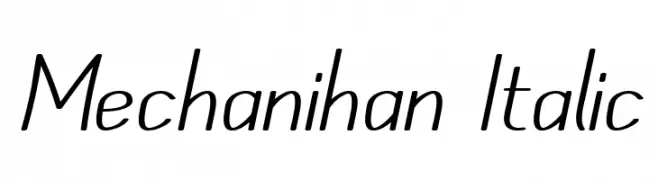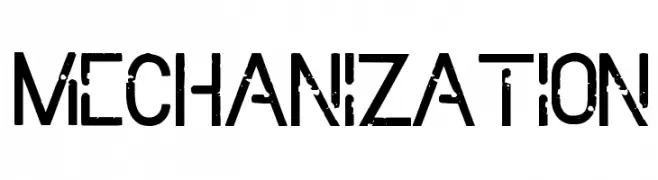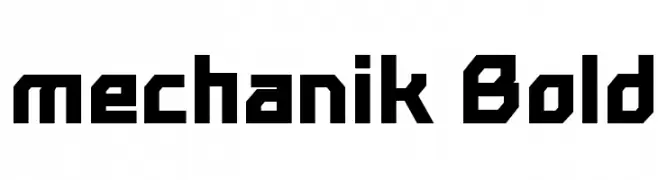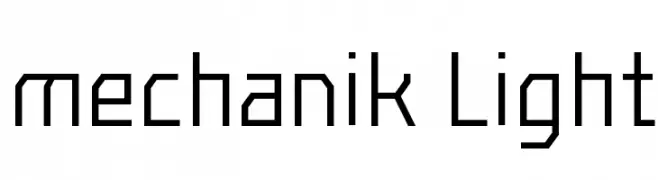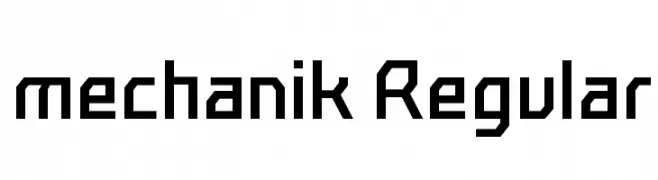
A playful, modern font with rounded curves and a handwritten feel.
A modern, italicized font with sleek, elongated characters and minimal contrast.
A modern, ribbon-like font with smooth curves and flowing lines.
A dynamic, italicized font with a ribbon-like, flowing style.
( Fonts by Przemyslaw Hoffer )
A bold, geometric font with a mechanical and industrial aesthetic.
( Fonts by Przemyslaw Hoffer )
A geometric, angular font with a modern, mechanical style.
( Fonts by Przemyslaw Hoffer )
A geometric, angular font with a mechanical and industrial style.
A decorative, mechanical-inspired font with intricate gear and line patterns.
A bold, geometric font with a futuristic, industrial style.
( Fonts by Chris Vile )
A rugged, industrial font with a distressed, mechanical appearance.